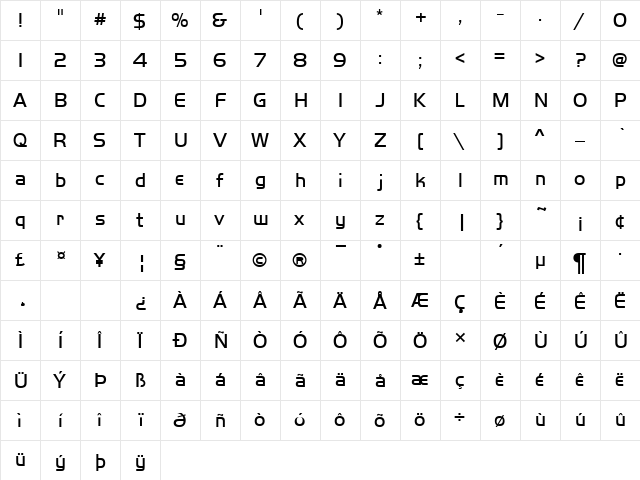
RainBow6 Regular
Design Context for RainBow6 Typeface
RainBow6 takes a measured approach to typography — its balanced proportions and neutral character make it a reliable workhorse for both digital and print work.